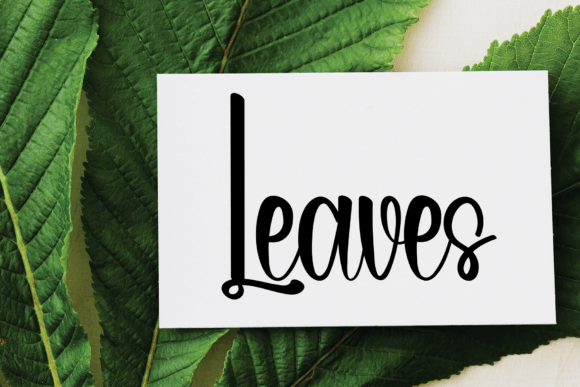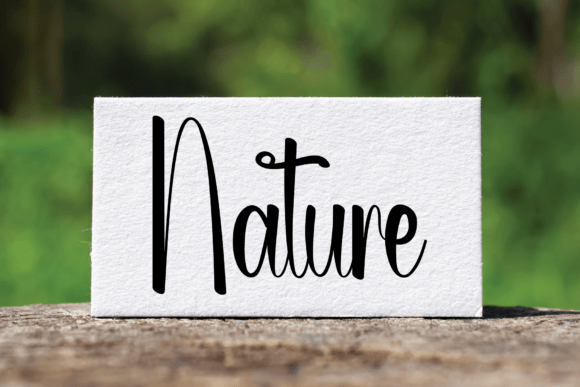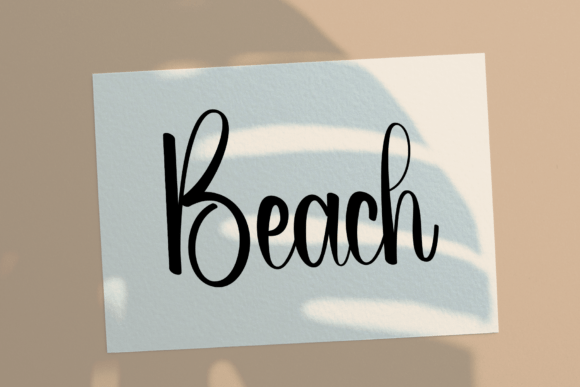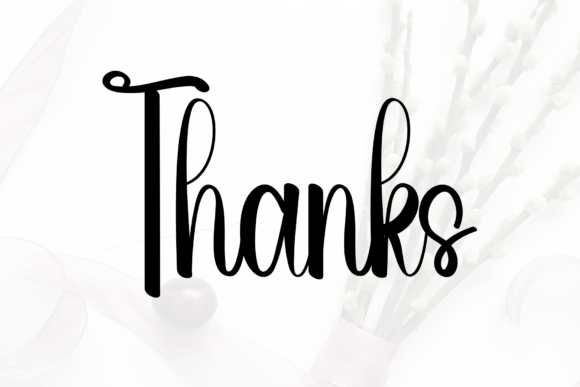
Introducing Blackbold Font: The Charming Handwritten Style for Your Design Projects
In the world of typography, fonts play a crucial role in conveying the tone and personality of a brand or design. If you’re looking for a font that exudes warmth, comfort, and a touch of perfection, look no further than Blackbold Font. This charming handwritten font is designed to bring a sense of heartfelt perfection to your design projects, making it an ideal choice for a wide range of applications.
The Characteristics of Blackbold Font
Blackbold Font is a beautifully crafted handwritten font that boasts smooth strokes and organic lines. These characteristics work together to create a relaxed atmosphere, perfect for designs that require a personal touch. The font’s fluidity and natural flow make it easy to read and understand, ensuring that your message is conveyed with clarity and elegance.
One of the standout features of Blackbold Font is its versatility. Its unique charm and character make it suitable for a wide range of design projects, including:
- Branding: Use Blackbold Font to create a strong brand identity that resonates with your target audience. Its warm and inviting tone is perfect for crafting a brand voice that feels approachable and genuine.
- Invitations: Whether you’re designing wedding invitations, birthday party invites, or any other type of celebration, Blackbold Font is an excellent choice. Its elegant and refined appearance adds a touch of sophistication to any design.
- Social Media Graphics: Create engaging social media graphics that capture the attention of your followers with Blackbold Font. Its unique style and charm make it perfect for crafting graphics that stand out in a crowded feed.
Why Choose Blackbold Font?
With so many fonts available, why choose Blackbold Font for your design projects? Here are just a few reasons:
- Unique Character: Blackbold Font has a distinct personality that sets it apart from other fonts. Its charming and handwritten style adds a touch of warmth and personality to any design.
- Ease of Use: Blackbold Font is incredibly easy to use, making it perfect for designers of all skill levels. Its smooth strokes and clear lettering ensure that your designs are always legible and visually appealing.
- Versatility: As mentioned earlier, Blackbold Font is incredibly versatile. Its adaptability makes it suitable for a wide range of design projects, from branding and invitations to social media graphics and more.
Tips for Using Blackbold Font Effectively
To get the most out of Blackbold Font, here are a few tips to keep in mind:
- Pair with Other Fonts: Experiment with pairing Blackbold Font with other fonts to create a unique and visually appealing design. Its smooth strokes and organic lines make it an excellent choice for pairing with sans-serif fonts.
- Use for Headings and Titles: Blackbold Font is perfect for headings and titles, where its unique character and charm can really shine. Use it to create eye-catching headlines that draw the reader in.
- Experiment with Colors: Don’t be afraid to experiment with different colors when using Blackbold Font. Its elegant appearance looks great in a variety of colors, from bold and bright to soft and pastel.
Blackbold Font is a charming handwritten font that brings a sense of heartfelt perfection to any design project. Its smooth strokes, organic lines, and relaxed atmosphere make it perfect for a wide range of applications, from branding and invitations to social media graphics and more. With its unique character, ease of use, and versatility, Blackbold Font is an excellent choice for designers and crafters looking to add a touch of warmth and personality to their designs.